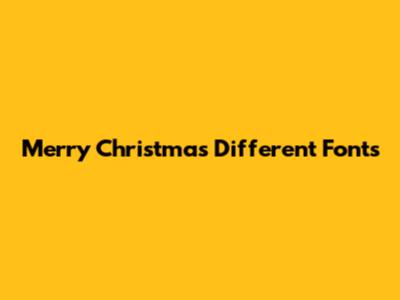
Merry Christmas Fonts: Festive Typography For The Holidays
Let's dive into the world of Christmas fonts, where typography meets holiday cheer! Choosing the right font is like picking the perfect ornament for your tree—it sets the tone and adds that special sparkle to your festive designs. From elegant scripts that whisper sophistication to playful, chunky letters that shout joy, the options are endless. Think about it: the font you use on your Christmas cards, social media posts, or even your DIY decorations can make a huge difference. It can evoke feelings of warmth, nostalgia, excitement, or even a touch of whimsy. So, whether you're a seasoned designer or just someone who loves to get crafty during the holidays, understanding the power of fonts is key to spreading that Christmas magic. When selecting your font, consider your overall theme. Are you going for a classic, traditional Christmas, or something more modern and quirky? A traditional theme might call for a serif font with elegant curves, while a modern theme could benefit from a clean, sans-serif font with a minimalist feel. Don't be afraid to experiment and mix and match, but always ensure your font is legible. After all, you want your Christmas message to be easily read and enjoyed! Beyond aesthetics, fonts also carry a subtle emotional weight. A bold, strong font can convey confidence and excitement, while a delicate, flowing script can evoke feelings of warmth and intimacy. Think about the message you want to send and choose a font that aligns with that emotion. For example, if you're creating a heartfelt Christmas card for a loved one, a handwritten-style font might be the perfect choice. On the other hand, if you're designing a promotional banner for a Christmas sale, a bold, eye-catching font will grab attention and convey a sense of urgency. Ultimately, the best Christmas font is one that speaks to you and captures the essence of the holiday season. So, explore your options, have fun, and let your creativity shine!
Classic Christmas Fonts
When you think of classic Christmas fonts, certain styles immediately come to mind. These are the fonts that evoke feelings of tradition, nostalgia, and timeless elegance. Serif fonts, with their little feet and balanced letterforms, are often a go-to choice for a classic Christmas look. Think of fonts like Times New Roman, Garamond, or Baskerville. These fonts exude a sense of formality and sophistication, making them perfect for traditional Christmas cards, invitations, or even signage. Their readability is also a major plus, ensuring your Christmas message is clear and easily understood. But classic doesn't have to mean boring! Even within the realm of serif fonts, there's plenty of room for creativity. Consider using a slightly bolder weight to add emphasis or pairing a classic serif font with a more modern sans-serif font for a touch of contrast. Another classic option is script fonts, especially those that mimic traditional calligraphy. These fonts add a touch of elegance and sophistication to any Christmas design. Think of fonts like Brush Script, Edwardian Script, or Great Vibes. These fonts are perfect for adding a personal touch to your Christmas cards or creating elegant headings for your festive projects. However, be mindful of readability when using script fonts, as some can be difficult to decipher, especially in smaller sizes. To ensure your message is clear, use script fonts sparingly and pair them with a more legible font for the body text. Beyond specific font families, certain design elements can also contribute to a classic Christmas feel. Consider using traditional colors like red, green, and gold, or incorporating classic Christmas motifs like snowflakes, holly, or reindeer. These elements, combined with a classic font, can create a truly timeless and elegant Christmas design. Moreover, think about the overall layout and composition of your design. A symmetrical layout with a clear hierarchy can enhance the classic feel, while a more modern layout with asymmetrical elements can add a touch of contemporary flair. Ultimately, the key to creating a successful classic Christmas design is to strike a balance between tradition and innovation. Use classic fonts and design elements as a foundation, but don't be afraid to add your own personal touch to make your design unique and memorable.
Modern Christmas Fonts
For a modern Christmas vibe, ditch the traditional serifs and embrace the clean lines and minimalist aesthetic of sans-serif fonts. These fonts, like Helvetica, Arial, or Futura, offer a sleek and contemporary look that's perfect for those who prefer a more understated holiday style. Their simplicity makes them incredibly versatile, working well on everything from social media graphics to website banners. One of the great things about modern fonts is their ability to be paired with bolder design elements. Think bright, unexpected colors, geometric shapes, and playful illustrations. This contrast between the simplicity of the font and the boldness of the other elements can create a visually striking and memorable Christmas design. Another key aspect of modern Christmas fonts is their emphasis on readability. Unlike some of the more ornate script fonts, sans-serif fonts are typically very easy to read, even in smaller sizes. This makes them a great choice for body text or for designs that need to be easily scannable. But modern doesn't have to mean cold or impersonal. You can still inject plenty of warmth and personality into your designs by choosing a sans-serif font with slightly rounded edges or by incorporating handwritten elements. Consider adding a hand-drawn illustration or a handwritten signature to your design to give it a more personal touch. In addition to sans-serif fonts, geometric fonts are also a great choice for a modern Christmas look. These fonts, with their clean, geometric shapes, offer a unique and eye-catching alternative to traditional fonts. Think of fonts like Montserrat, Raleway, or Open Sans. These fonts are perfect for creating bold headlines or for adding a touch of visual interest to your designs. When using modern Christmas fonts, don't be afraid to experiment with different color combinations and typography techniques. Try using contrasting colors to make your text stand out, or experiment with different font weights and sizes to create visual hierarchy. You can also try adding subtle effects like shadows or gradients to give your text a more three-dimensional look. Ultimately, the key to creating a successful modern Christmas design is to embrace simplicity, readability, and a touch of playfulness. Use clean fonts and bold design elements to create a visually striking and memorable design that captures the spirit of the season.
Fun and Playful Christmas Fonts
If you're aiming for a fun and playful Christmas, then it's time to unleash your inner child and explore fonts that are bursting with personality! Think whimsical, quirky, and a little bit unconventional. These fonts are perfect for creating designs that are lighthearted, joyful, and full of holiday cheer. Handwritten-style fonts are a great way to add a personal and playful touch to your Christmas designs. These fonts mimic the look of real handwriting, giving your designs a warm and inviting feel. Think of fonts like Amatic SC, Permanent Marker, or Indie Flower. These fonts are perfect for creating casual Christmas cards, gift tags, or social media posts. However, be mindful of readability when using handwritten-style fonts, as some can be difficult to decipher, especially in smaller sizes. To ensure your message is clear, use handwritten-style fonts sparingly and pair them with a more legible font for the body text. Another option for a fun and playful Christmas is to use novelty fonts. These fonts are designed to be eye-catching and unique, often incorporating playful shapes or decorative elements. Think of fonts like Candy Cane, Christmas Lights, or Jingle Bells. These fonts are perfect for creating eye-catching headlines or for adding a touch of whimsy to your designs. However, use novelty fonts sparingly, as they can be overwhelming if overused. To avoid visual clutter, pair novelty fonts with simpler fonts for the body text. In addition to specific font families, certain design elements can also contribute to a fun and playful Christmas feel. Consider using bright, cheerful colors, playful illustrations, and whimsical patterns. These elements, combined with a fun and playful font, can create a truly festive and memorable Christmas design. Moreover, think about the overall layout and composition of your design. An asymmetrical layout with playful elements can enhance the fun and playful feel, while a more structured layout can add a touch of balance. Ultimately, the key to creating a successful fun and playful Christmas design is to embrace your creativity and let your personality shine through. Use playful fonts and design elements to create a design that is both visually appealing and full of holiday cheer.
Pairing Christmas Fonts
Pairing Christmas fonts effectively is key to creating visually appealing and balanced designs. Think of it like creating a harmonious melody – different fonts can complement each other and create a beautiful visual rhythm. A common approach is to combine a serif font with a sans-serif font. This creates a contrast that is both visually interesting and easy to read. For example, you could pair a classic serif font like Garamond with a modern sans-serif font like Helvetica. The serif font can be used for headings, while the sans-serif font can be used for the body text, creating a clear visual hierarchy. Another approach is to pair a bold font with a lighter font. This creates a contrast that draws the eye to the more important elements of your design. For example, you could pair a bold sans-serif font like Impact with a light serif font like Times New Roman. The bold font can be used for headlines or calls to action, while the lighter font can be used for the body text. When pairing fonts, it's important to consider the overall tone and style of your design. If you're going for a classic and elegant look, you might want to pair two serif fonts that have a similar aesthetic. If you're going for a more modern and playful look, you might want to pair a sans-serif font with a handwritten-style font. It's also important to consider the readability of your fonts. Make sure that the fonts you choose are easy to read, especially in smaller sizes. Avoid pairing fonts that are too similar in appearance, as this can make your design look cluttered and confusing. To ensure your fonts are legible, pay attention to their kerning and leading. Kerning refers to the spacing between individual letters, while leading refers to the spacing between lines of text. Adjusting these settings can significantly improve the readability of your fonts. Beyond specific font pairings, it's also important to consider the overall color palette and imagery of your design. Choose colors and images that complement your fonts and enhance the overall message you're trying to convey. Ultimately, the key to successful font pairing is to experiment and find what works best for your design. Don't be afraid to try different combinations and see what looks good. With a little practice, you'll be able to create stunning Christmas designs that are both visually appealing and easy to read.